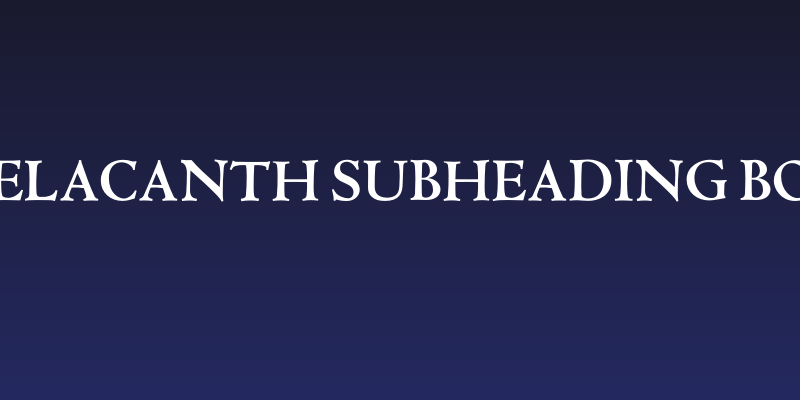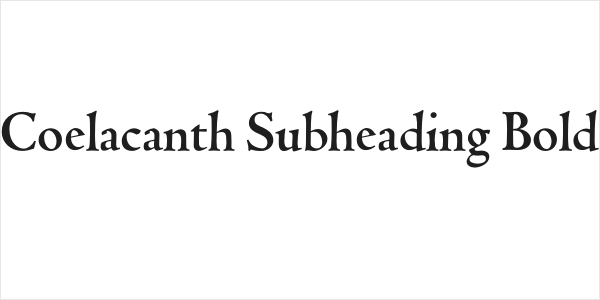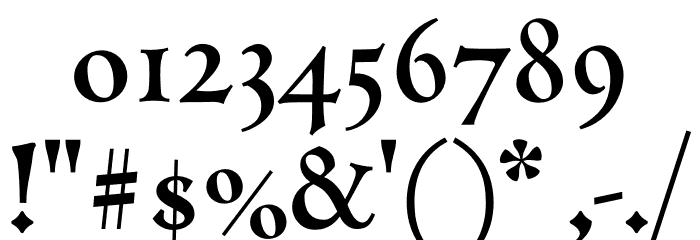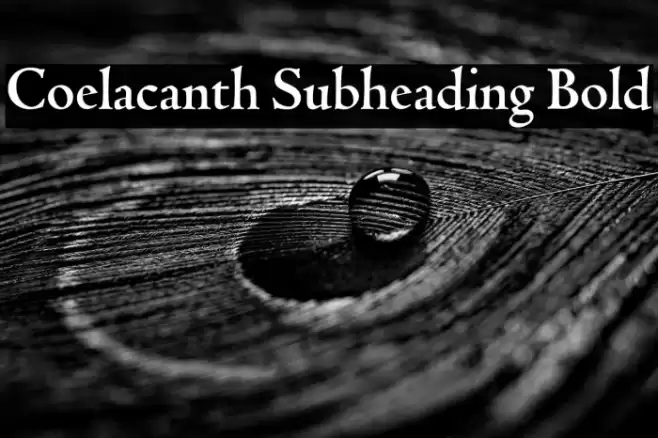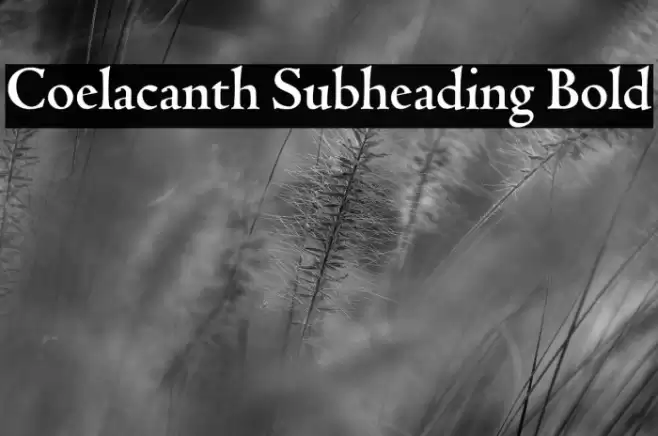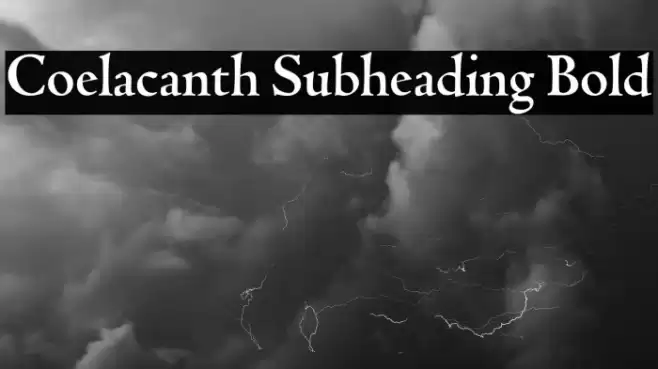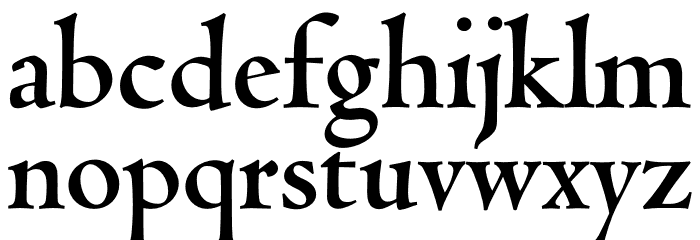
Coelacanth Subheading Bold Font
Coelacanth Subheading Bold Description
This font exhibits a bold and distinctive serif style with a classic yet slightly whimsical appearance. The uppercase letters are characterized by strong, angular serifs and a slight curvature that adds a touch of elegance. The lowercase letters maintain a consistent style with the uppercase, featuring pronounced serifs and a balanced weight distribution. The numerals are uniquely styled, with a slight slant and bold presence, making them stand out. Special characters are crafted with the same attention to detail, ensuring a cohesive look across all glyphs. The overall design is both traditional and playful, making it versatile for various applications.
| Overall Style | Classic |
| Use Case | Headlines, Logos, Editorial Design |
| Proposed Projects | Ideal for book covers, editorial headings, branding projects, and any design requiring a touch of elegance and tradition. |